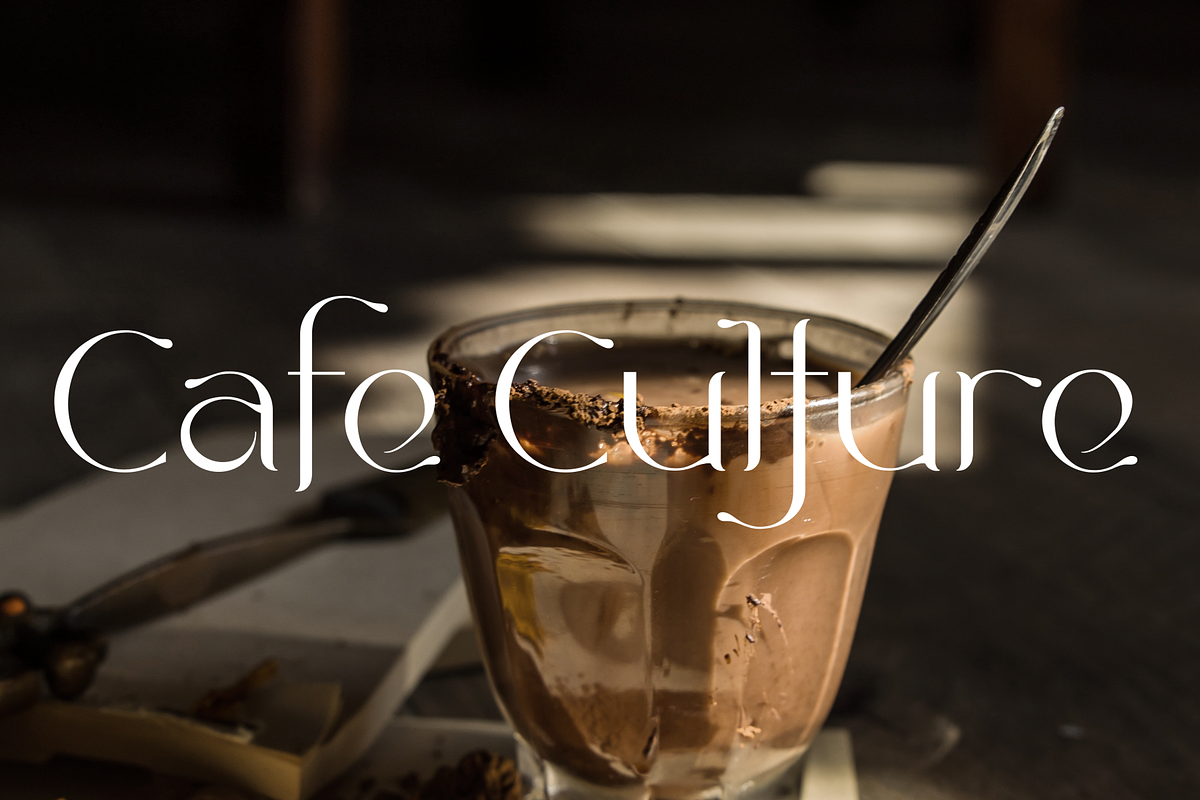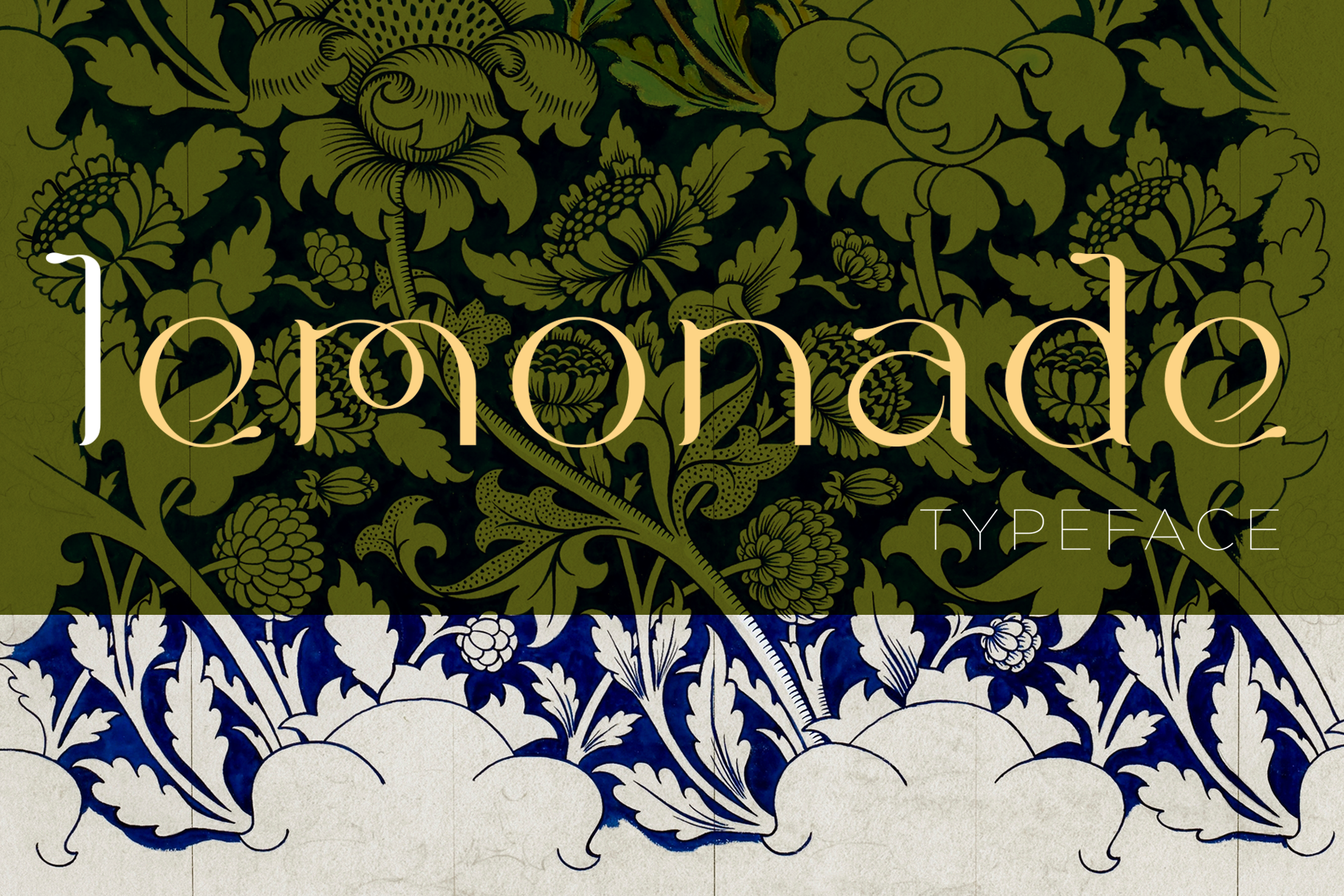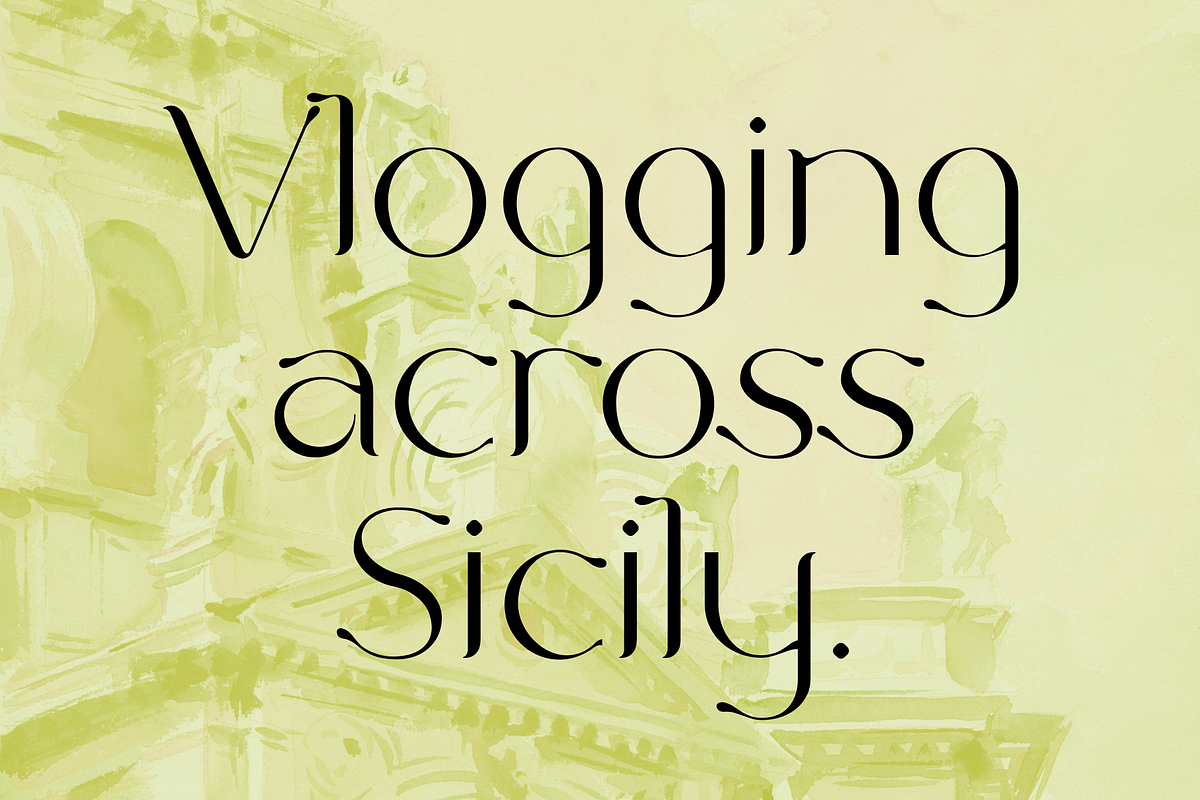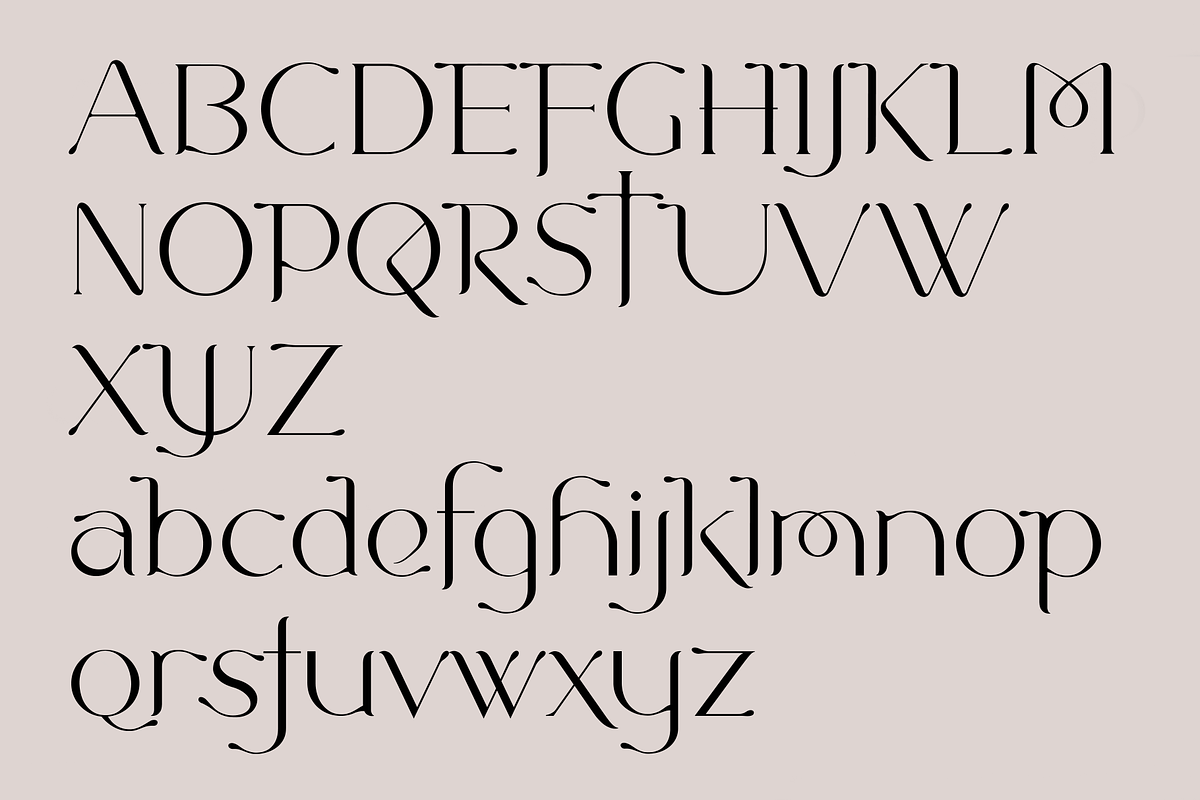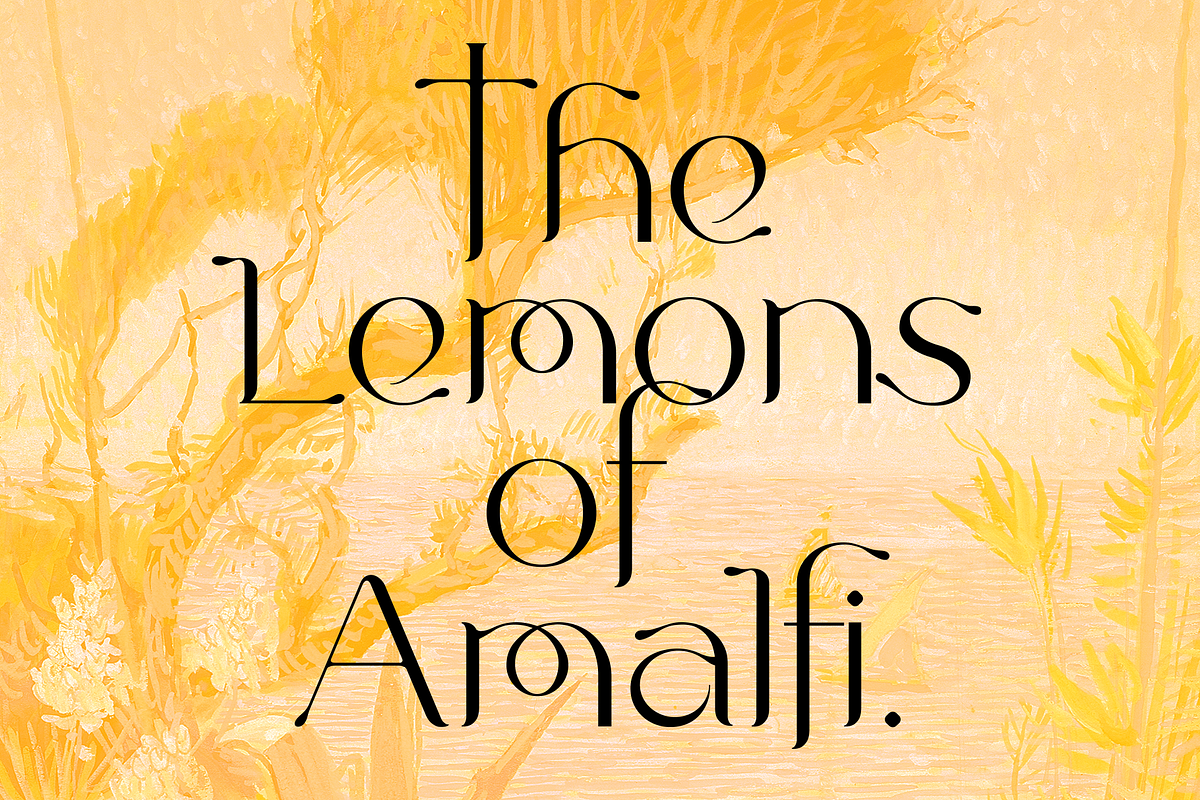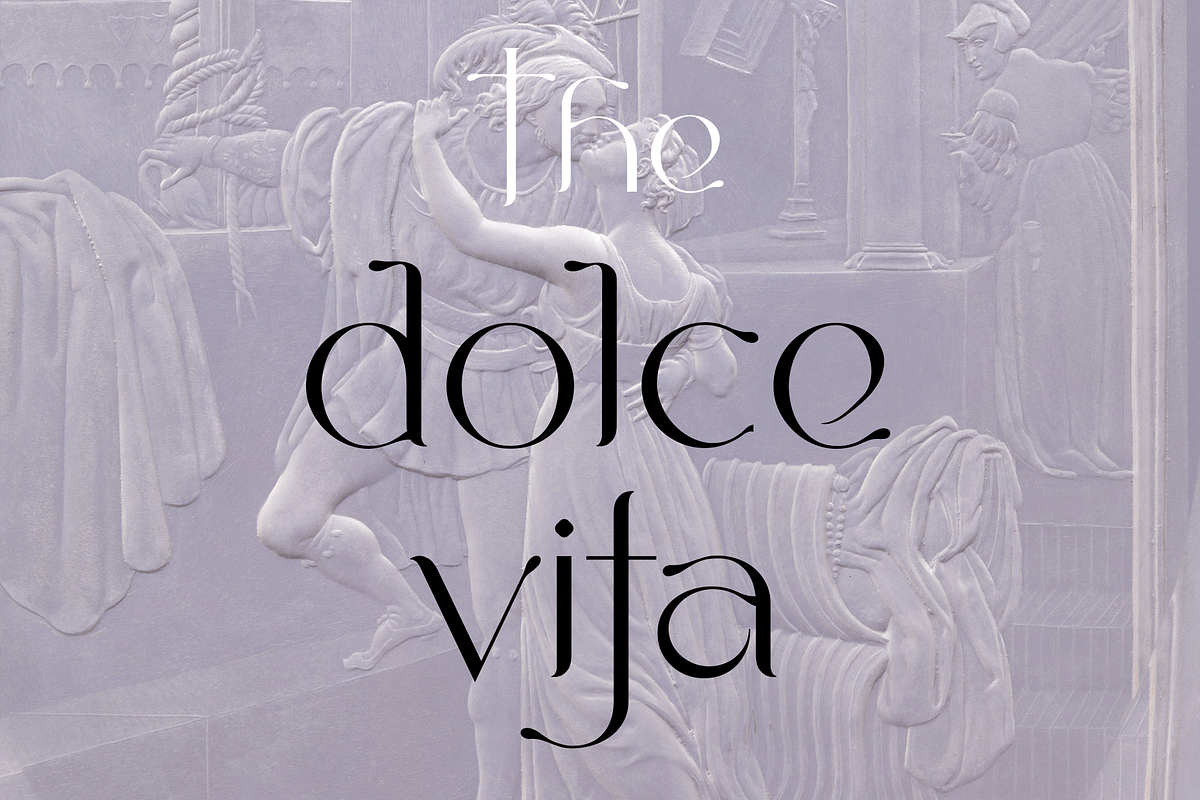
Lemonade. Chic new social media font
Lemonade is another beautiful new serif font for designers from LostandFoundry. This font is full of identity and character and has been designed specifically with users posting on social media in mind. Lemonade will look stunning in your design projects - in logos, headlines, packaging and wedding designs. And of course also online on websites, blogs, vlog titles, Youtube creator titles and social media post titles. Lemonade comes in 2 weights and supports French, German and other European Languages.